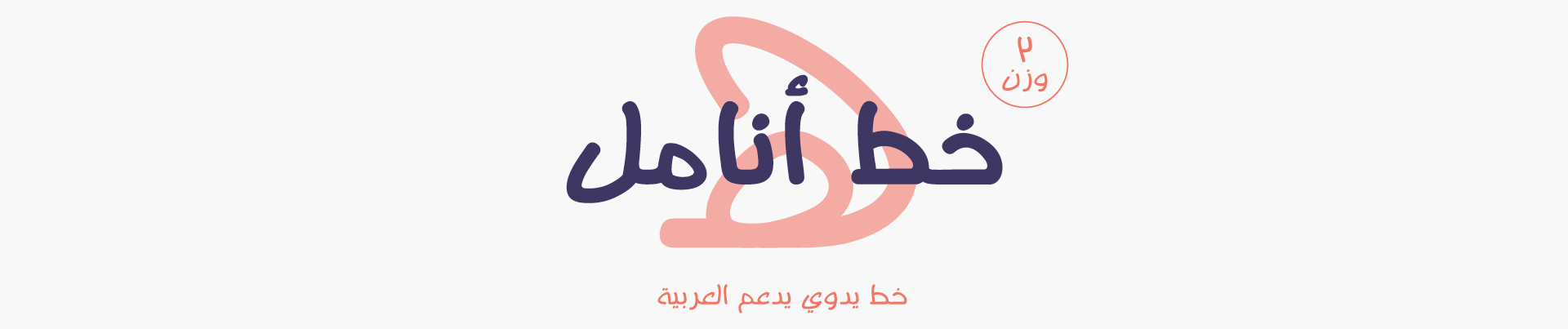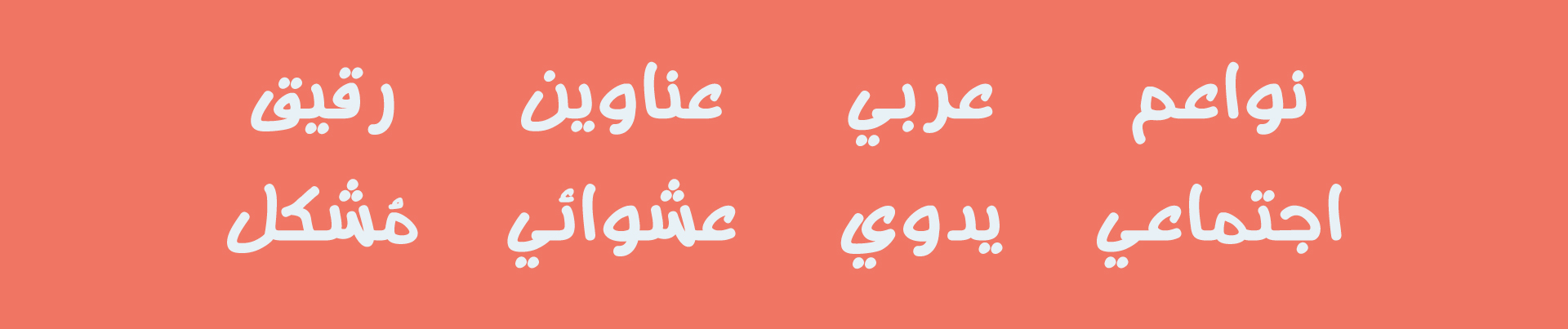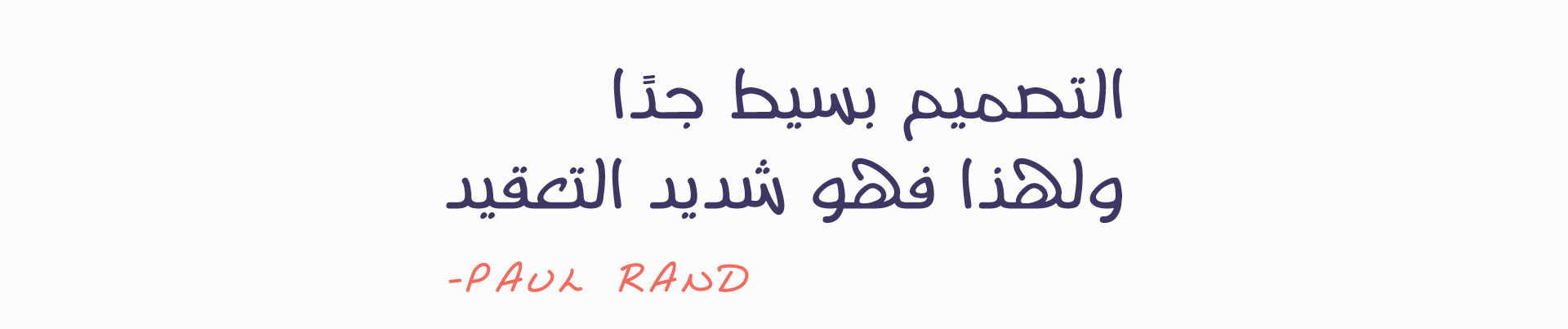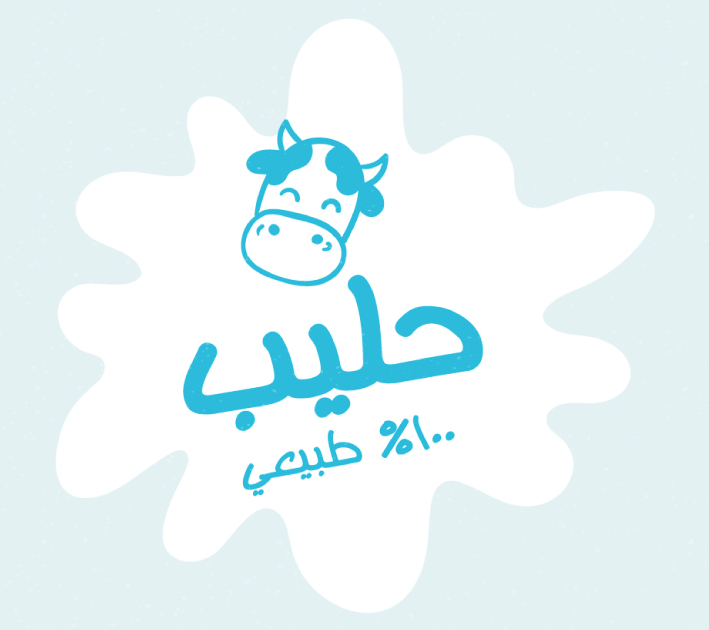
About Anamil Font
Introduction:
Anamil is a free handwriting Arabic font.
Weights and Supported Languages:
It is available in two weights
It supports the Arabic language
Usage:
Suitable for headlines, comics, sweets packaging, and social media posters
Designing & Developing:
TSfonts Type Foundry
Tarek Alsawwa